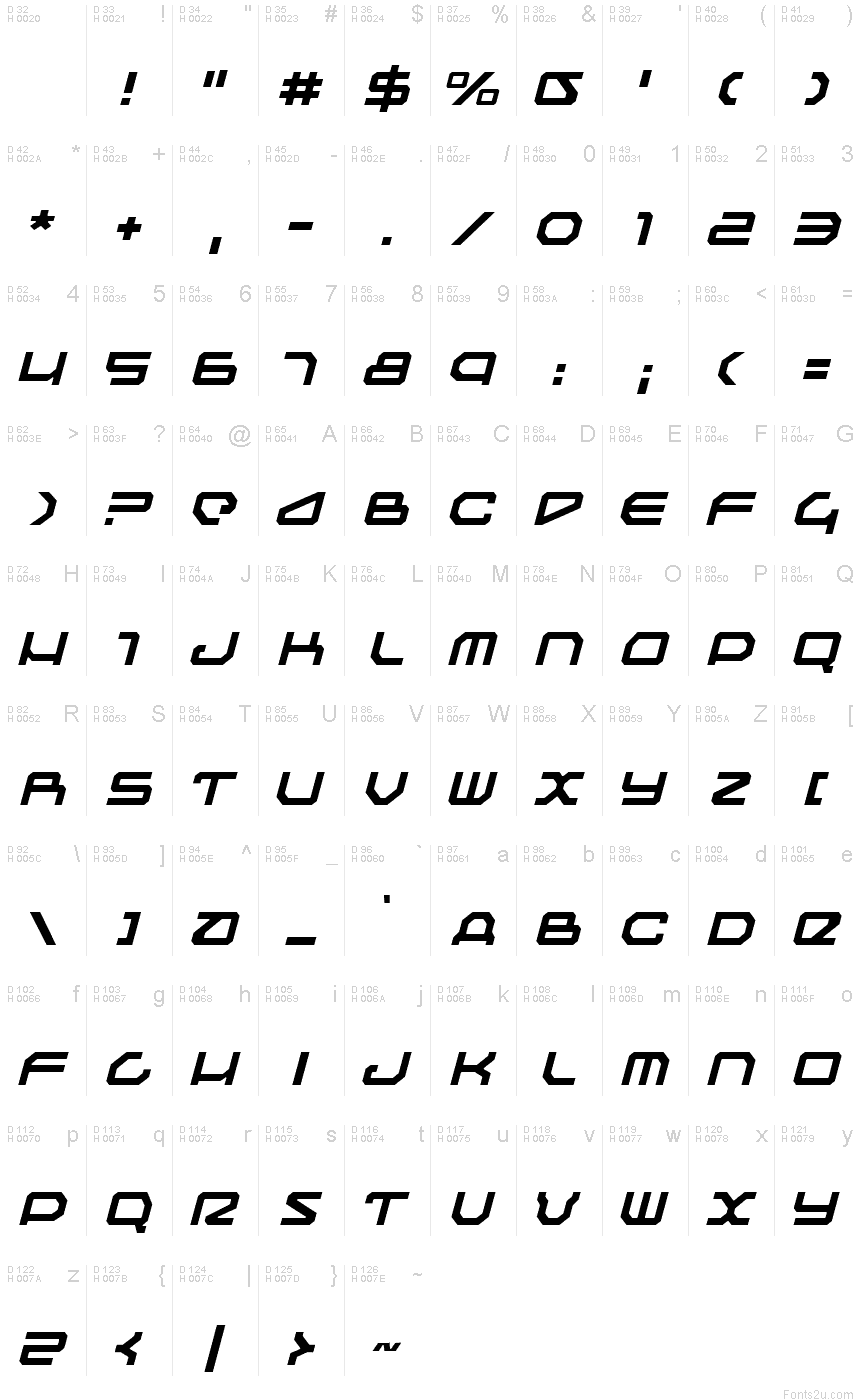
Traveler Light Italic by Daniel Zadorozny of Iconian Fonts is a free futuristic display font with a fast, angular silhouette. Its broad slanted letters are carved with deep diagonal cuts and squared breaks that suggest machined panels. The changing stroke widths keep the forms taut, technical, and distinctly mechanical.
A motorsport apparel label or gaming studio could use it for branding, packaging, and event posters that draw on its speed-driven construction. Its clipped geometry is particularly convincing in science-fiction games.